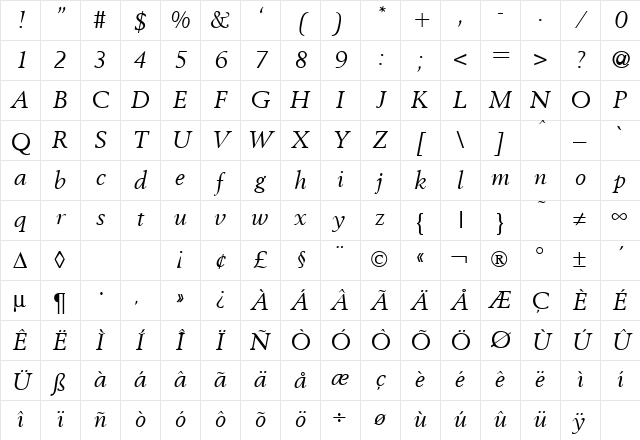
Complete Bestseller RegularItalic glyph index. Displaying only characters natively supported by Bestseller RegularItalic font.
Bestseller is a composed and adaptable typeface that performs quietly and consistently across a wide range of design contexts. The slanted form adds forward momentum and visual energy.